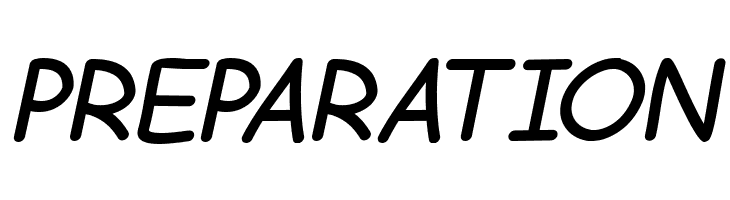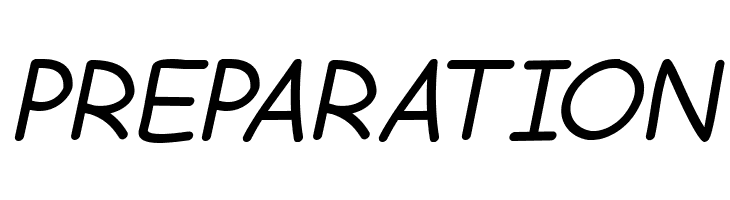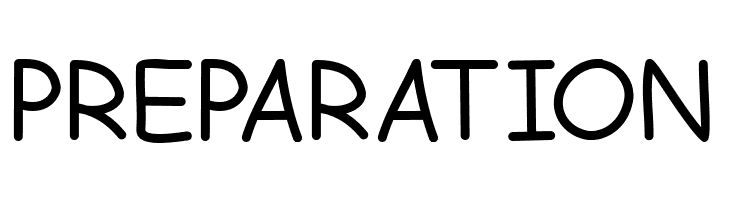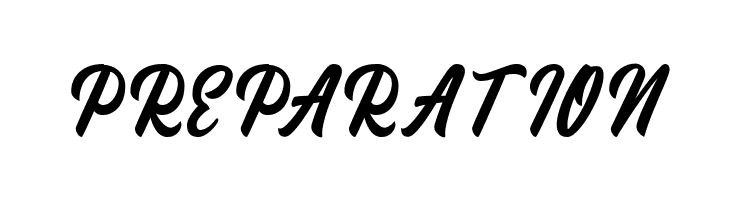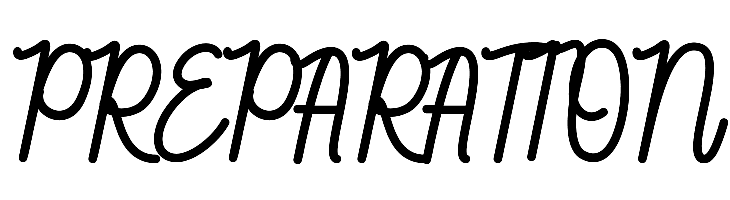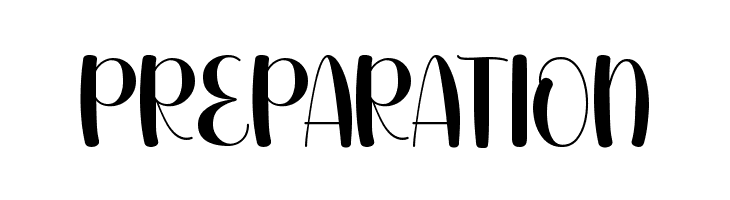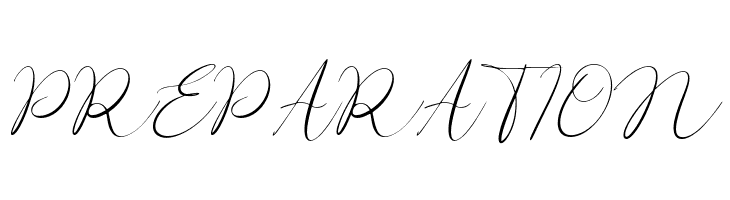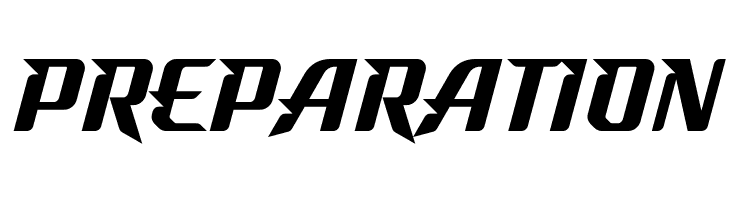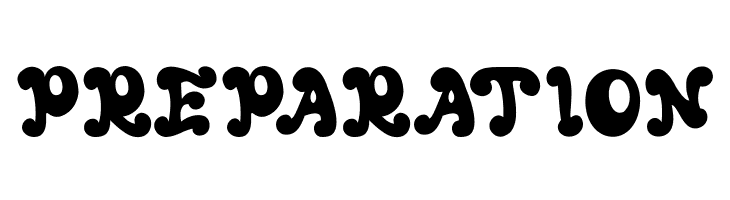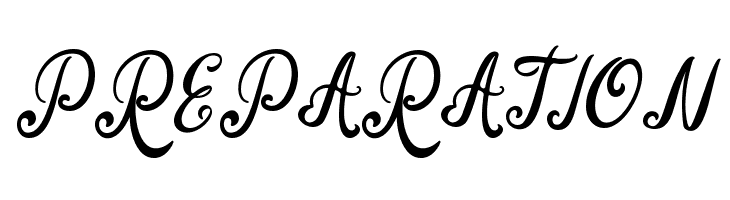
A playful and energetic handwritten script font with smooth, connected strokes.
A sleek, modern italic font with continuous line design and smooth curves.
A modern, geometric font with thin, continuous lines and a sleek design.
A modern, outlined font with geometric shapes and smooth curves.
A modern, outlined font with inverse bold style and geometric structure.
A bold, playful font with rounded, whimsical characters.
A dynamic, handwritten font with elongated, slanted characters.
A bold, hand-drawn font with a sketch-like, dynamic style.
A futuristic and geometric font with clean lines and angular shapes.
A modern, geometric outline font with a futuristic aesthetic.
An elegant script font with flowing lines and high contrast, perfect for sophisticated designs.
A lively, expressive handwritten font with dynamic strokes and playful flair.
A futuristic, geometric font with rounded edges and a bold style.
A bold, brush-like font with an expressive and dynamic style.
A dynamic and fluid script font with elegant, flowing curves and a modern touch.
A dynamic and elegant script font with flowing, cursive letterforms.
A dynamic, italic script font with flowing, connected characters.
A bold, outlined font with a modern geometric style.
A bold, blocky font with a strong geometric design, ideal for impactful headlines.
A bold, playful handwritten font with a casual and energetic style.
A bold, angular, italic font with a modern, geometric style.
A dynamic and elegant script font with fluid, connected letterforms.
A bold, playful font with rounded, bubbly characters and a whimsical style.
A bold, thorny, and aggressive decorative font.
A playful, bold handwritten font with smooth curves and consistent height.
A bold, handwritten font with a dynamic and expressive style.
A dynamic handwritten font with fluid strokes and a natural flow.
A graceful and elegant script font with flowing, interconnected characters.
An elegant script font with decorative swirls and a sophisticated style.
A bold, flowing script font with a playful, handwritten style.
A dynamic, hand-drawn script font with bold, sweeping strokes.
A handwritten-style font with elegant, flowing curves and dynamic stroke variations.
A graceful and elegant script font with flowing, interconnected characters.